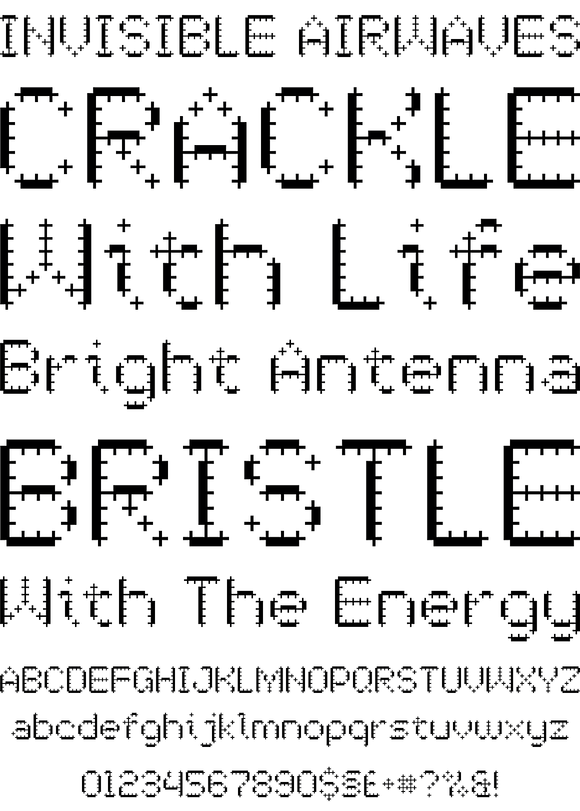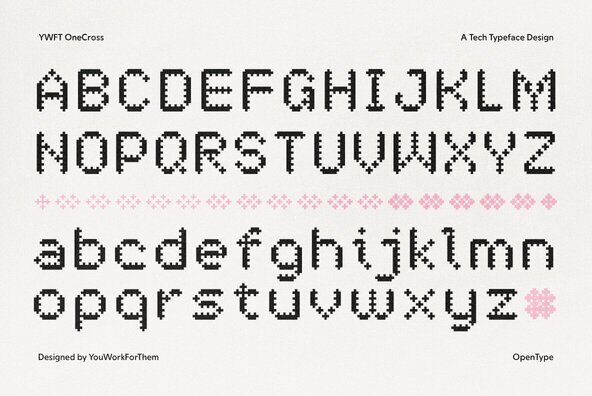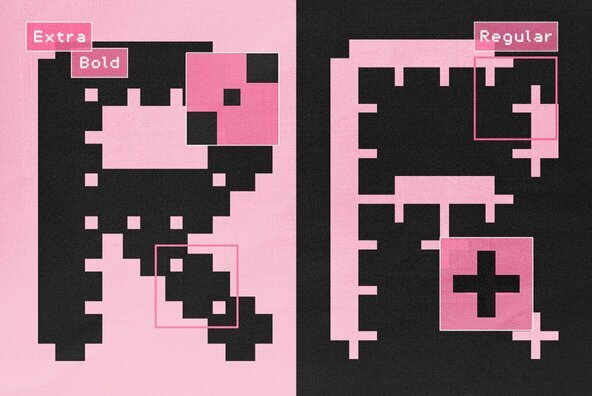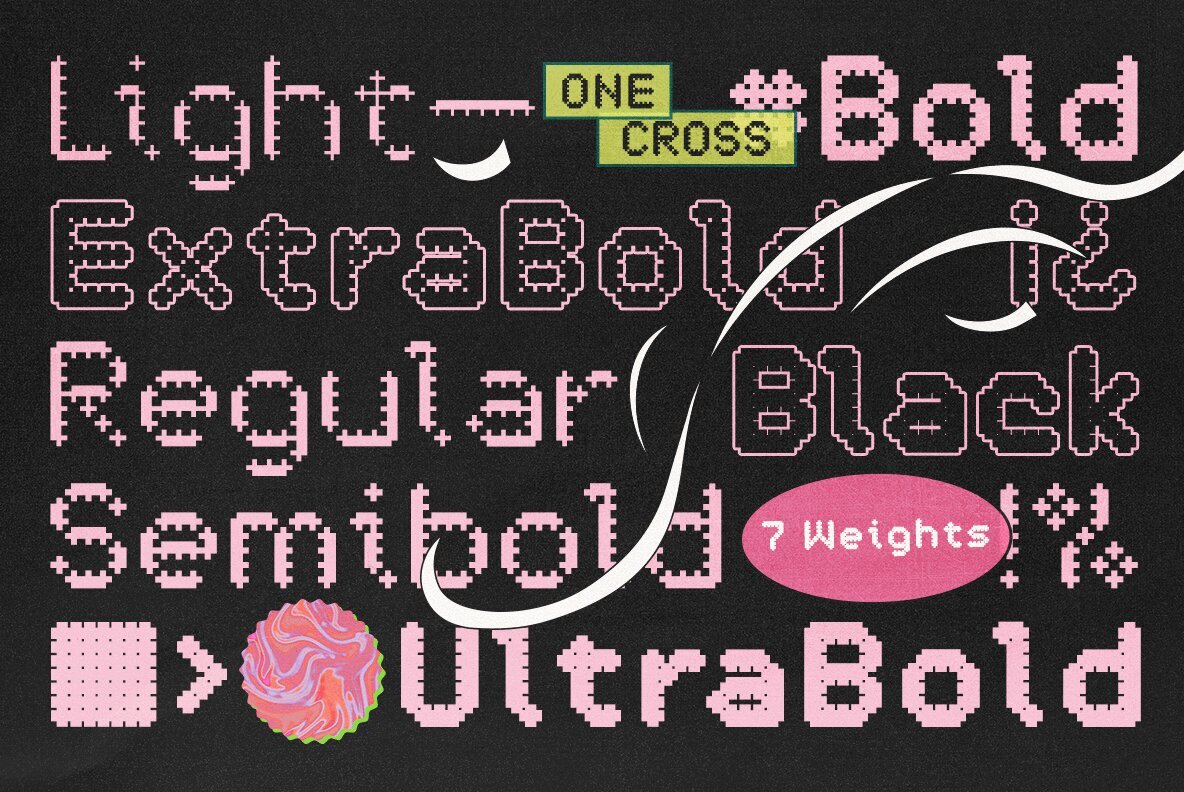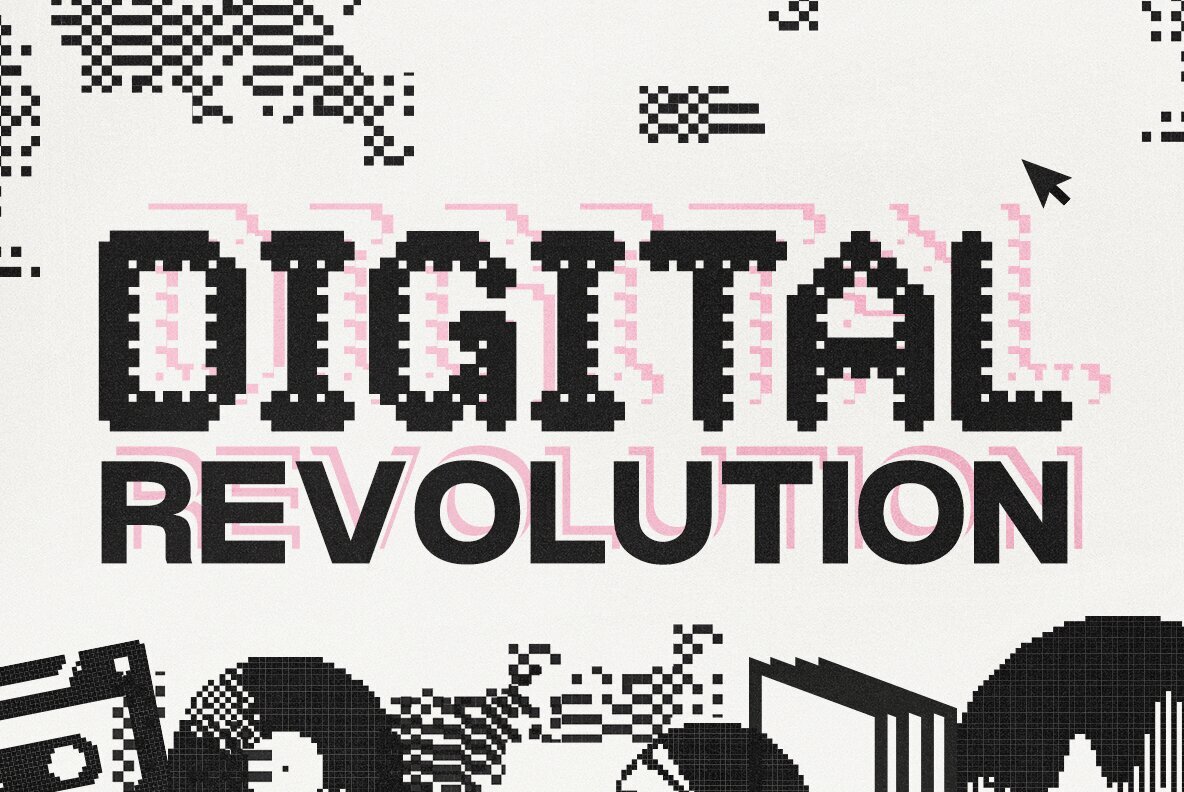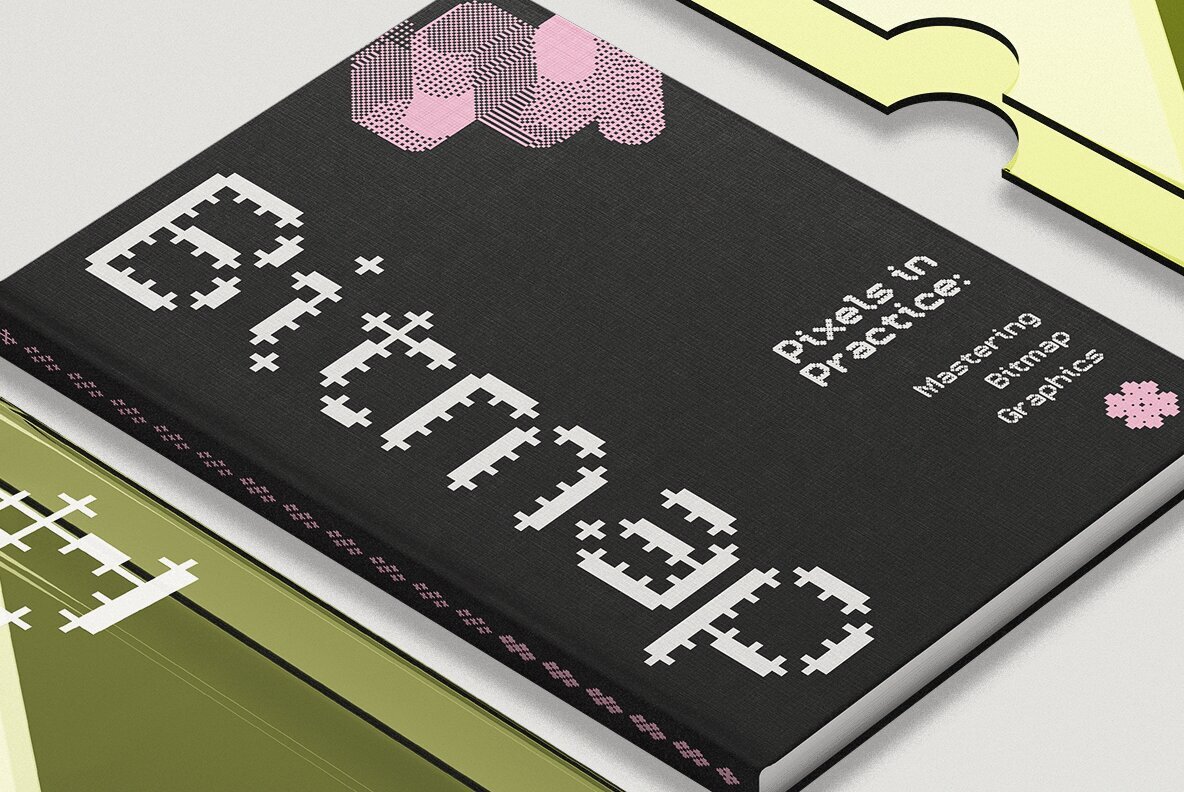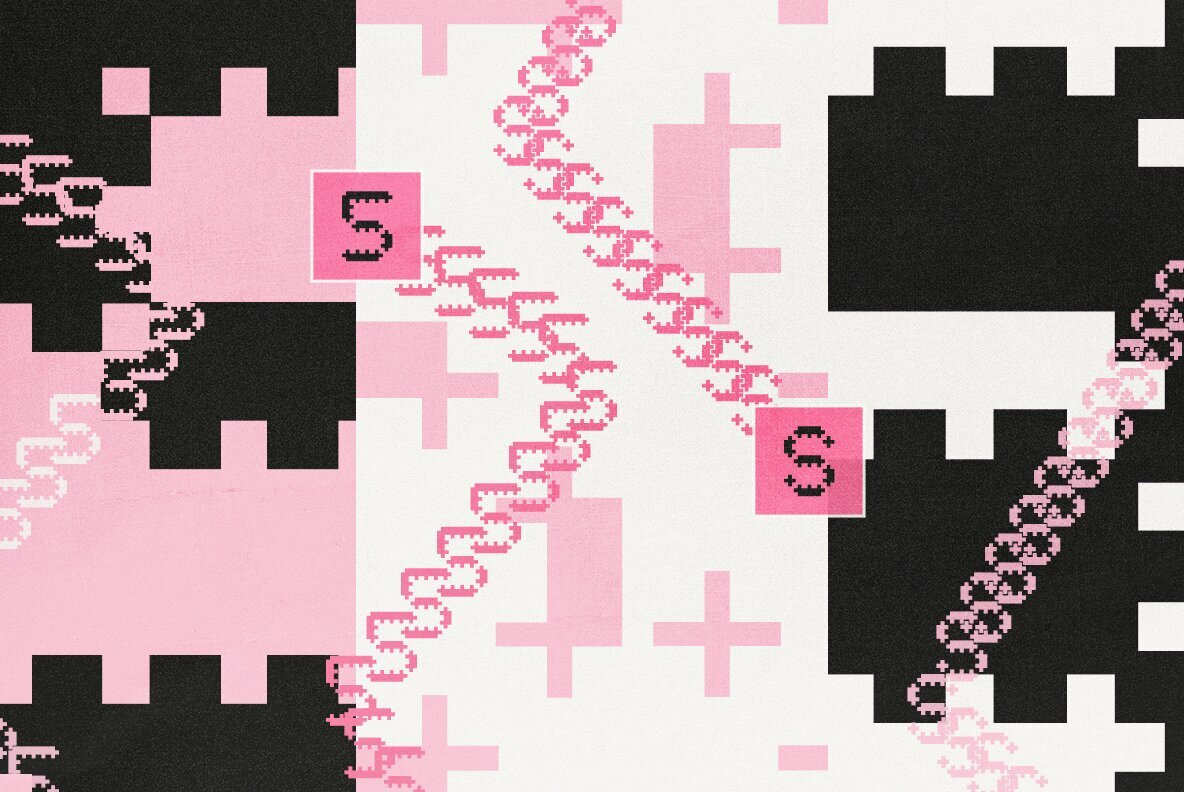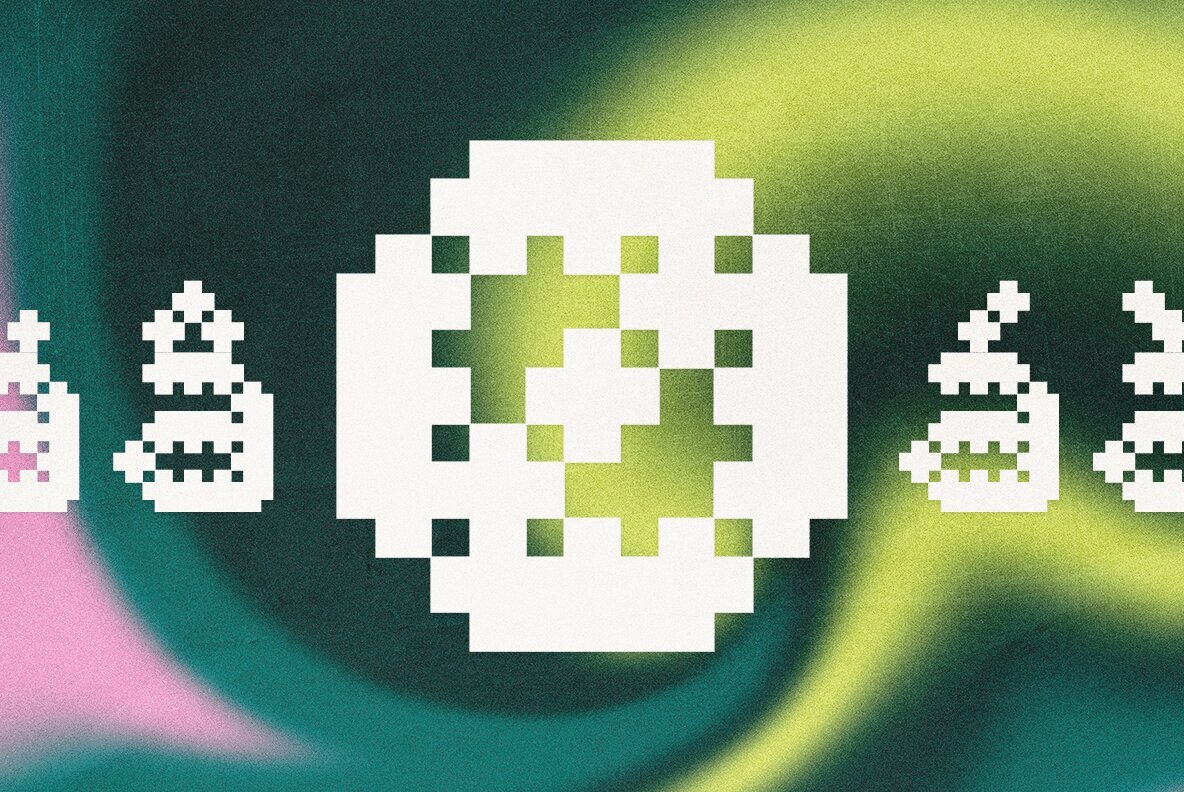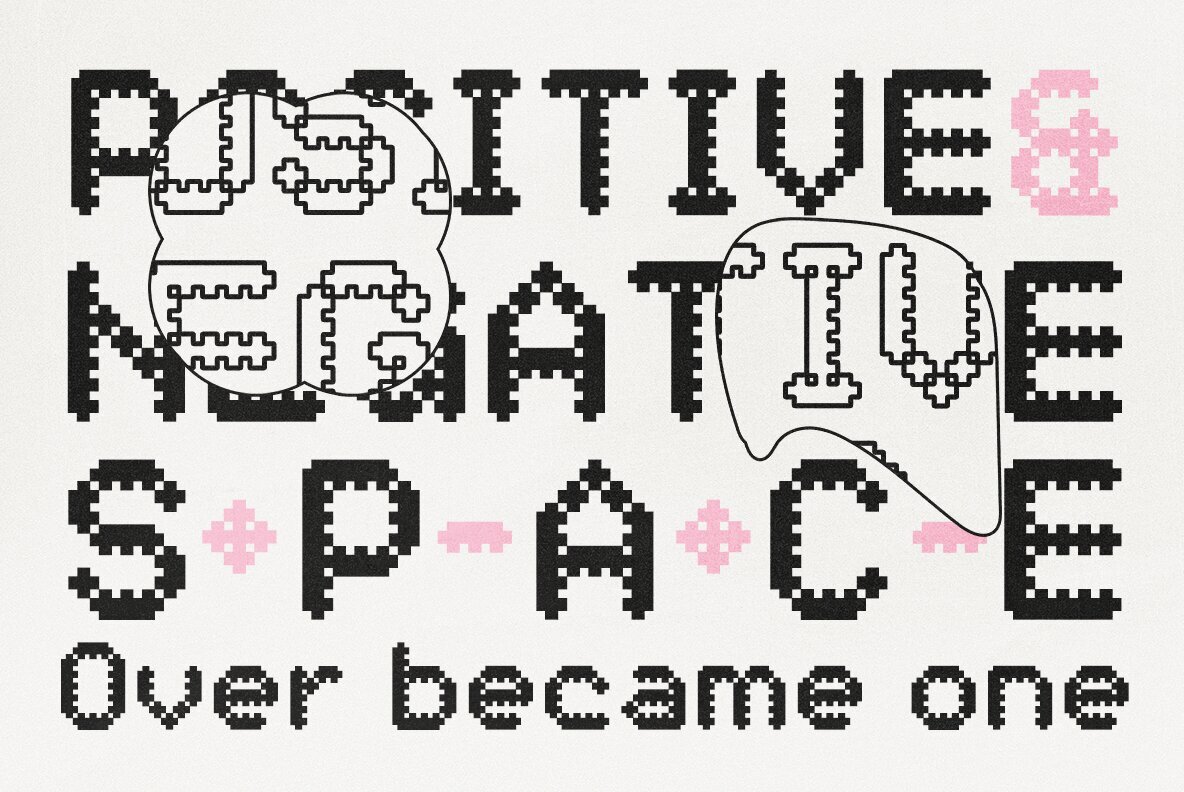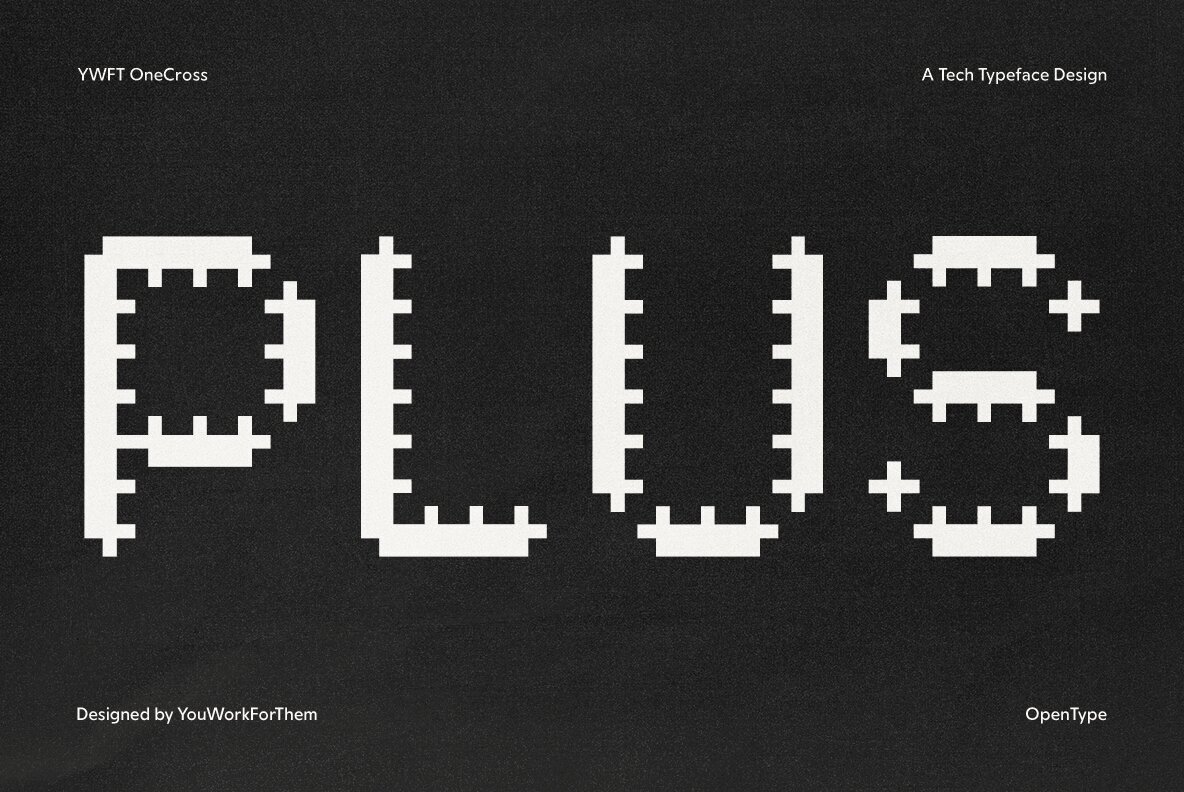
YWFT OneCross
Comprised entirely of "plus signs" of varying weights, YWFT OneCross had its genesis in YWFT OverCross (2002). When it was reworked later that year in order to create a more integrated blend of positive and negative space, Over became One, and thus was an empire forged. This is a powerful, visually arresting font that brings the serious noise to tech/future design projects and article headers alike. Both YWFT OneCross and its predecessor have been used by numerous magazines and websites since 2002. The font was converted to Opentype in 2010. Designed exclusively by Michael Cina and YouWorkForThem.